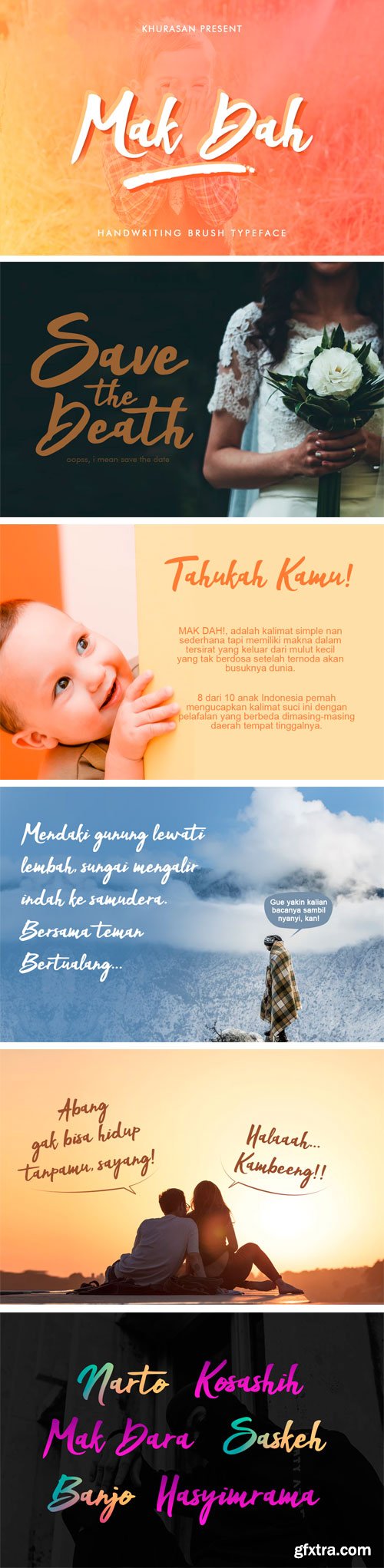
Mak Dah Brush Font
Mak Dah is a new handmade brush font, combining calligraphy typefaces with a free flowing and moving baseline. Mak Dah designed by syaf rizal. It has a casual, yet elegant touch. It can also be used for your autography in any graphic material. It can be used in all advertising materials, perfect for: branding, business card, packaging, flyer, logo, photos, books, packaging, posters, etc ...